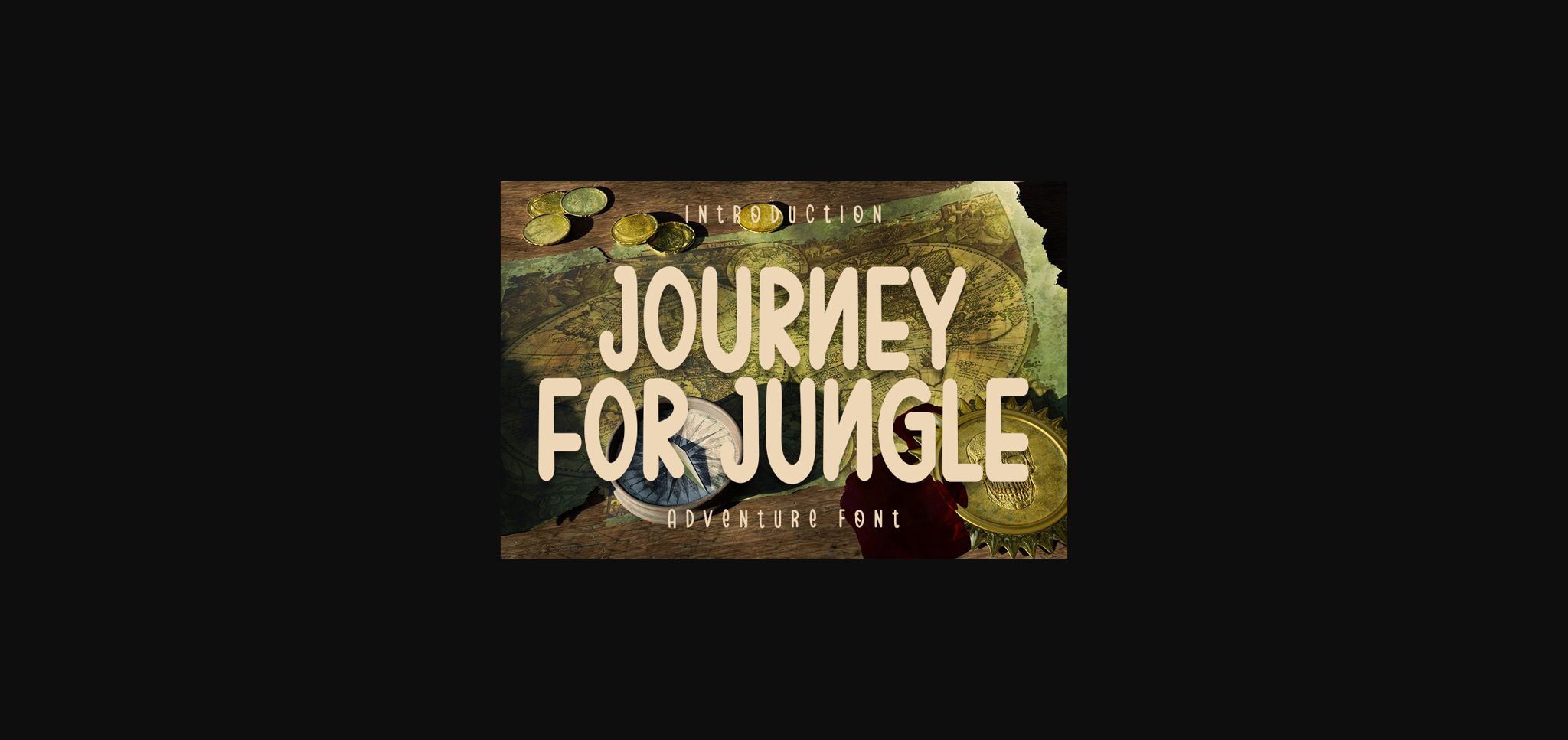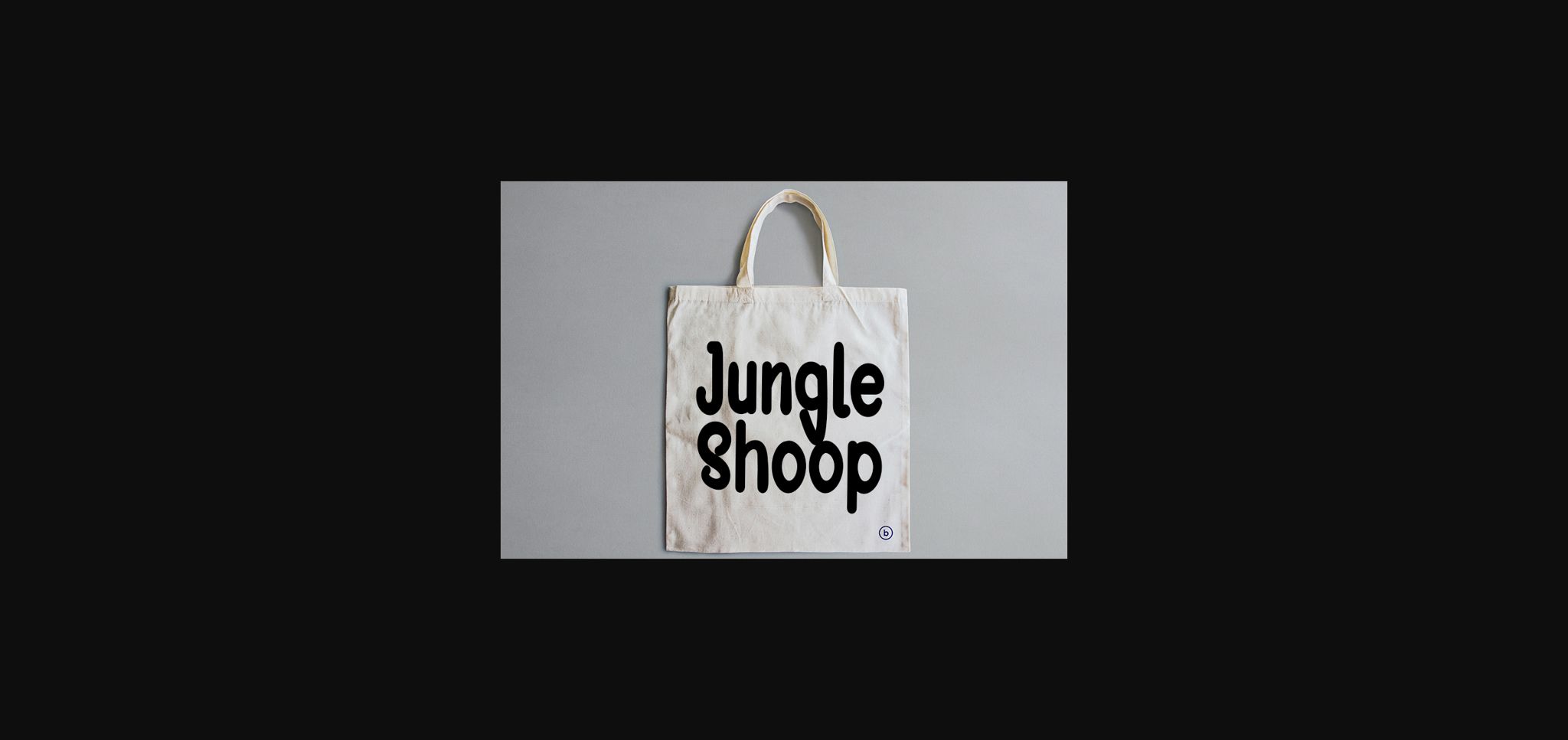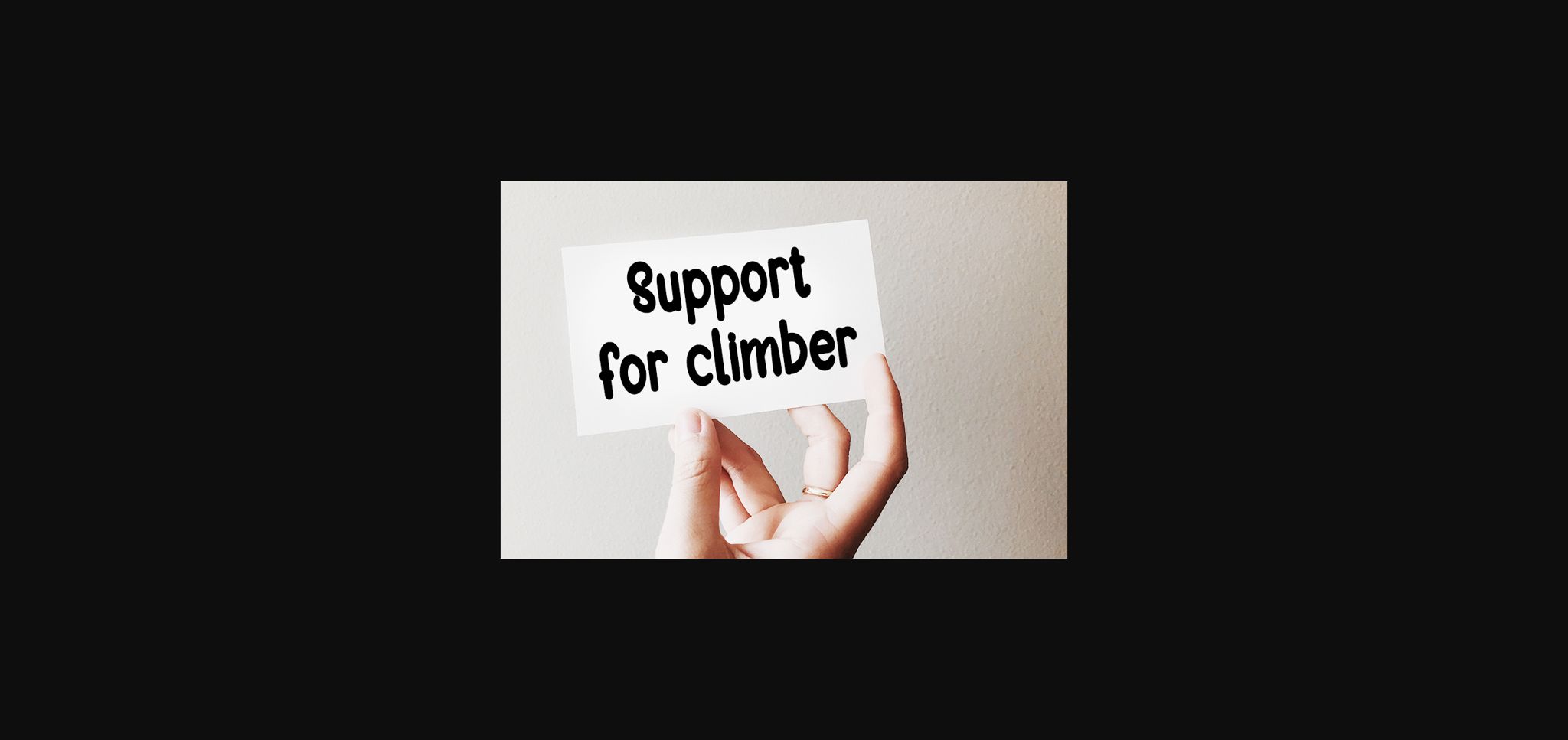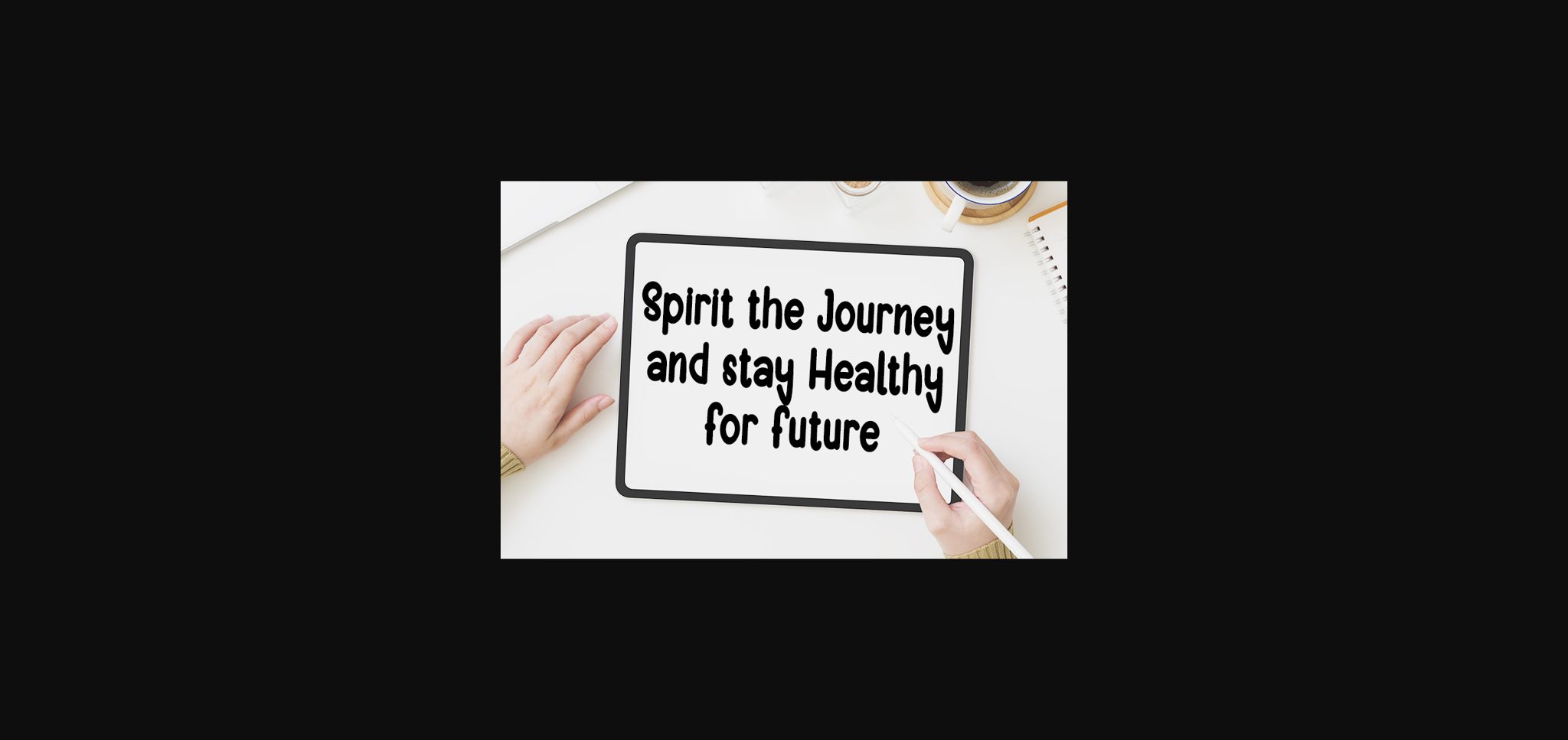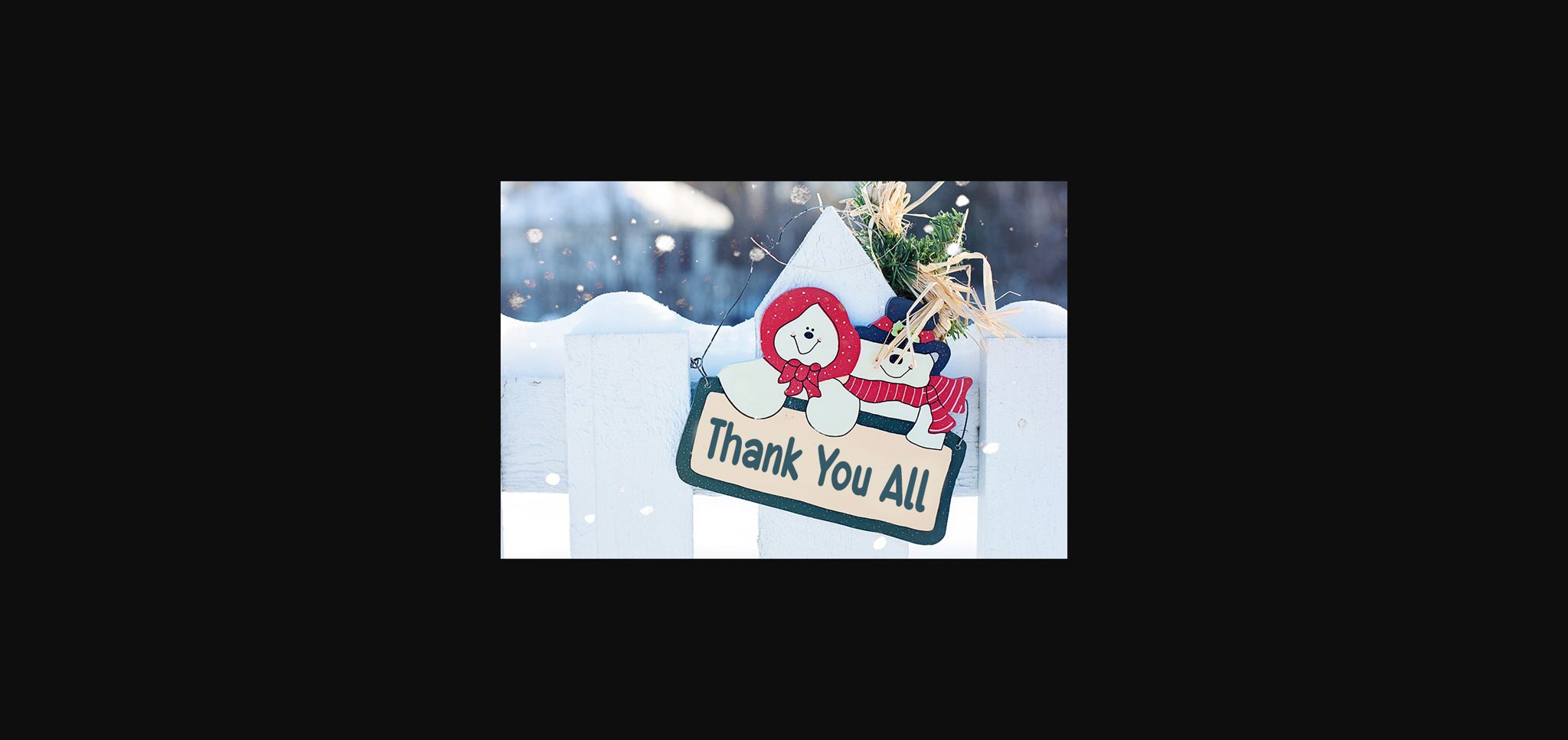
HomeSans Serif FontsJourney for Jungle Font Sans Serif Fonts Journey for Jungle Font FacebookXPinterestWhatsApp 1 of 7 ... Journey for Jungle Font Poster 2... Journey for Jungle Font Poster 3... Journey for Jungle Font Poster 4... Journey for Jungle Font Poster 5... Journey for Jungle Font Poster 6... Journey for Jungle Font Poster 7... About Journey for Jungle Font Journey for Jungle is a simple, all round and clean sans serif font. Its flexibility and neat style will brighten up each of your designs. Have fun with this cool font and explore its endless variations. DOWNLOAD NOW People also explored Alpha Anggela Font Carthart Font Putri Echty Font Headey Font Charlie Swift Font Machow Font Baby Tokyo Font Hooked Font Raspberry Sherbet 465 0 TagsJourney for Jungle Font Previous articleSeductive Height FontNext articleSchool Rules Font LEAVE A REPLY Cancel reply Comment: Please enter your comment! Name:* Please enter your name here Email:* You have entered an incorrect email address! Please enter your email address here Website: Save my name, email, and website in this browser for the next time I comment. Personal Use Free Hearted Personal Use Free Read more about this font Covelia Personal Use Free Read more about this font Geuli Personal Use Free Read more about this font Bukhari Script Personal Use Free Read more about this font BLOG How to Install and Use Fonts on Windows, macOS, and Web Projects How to Install and Use Fonts on Windows, macOS, and Web Projects Fonts are a crucial part of design and branding. Whether you’re designing a... Best Fonts for T-Shirt Design – Top 2025 Picks Transform Your Website: Elevate Your Typography with 7 Best Web Font Generators How to Cut Any Font on Cricut: Convert a Font to SVG (Free)